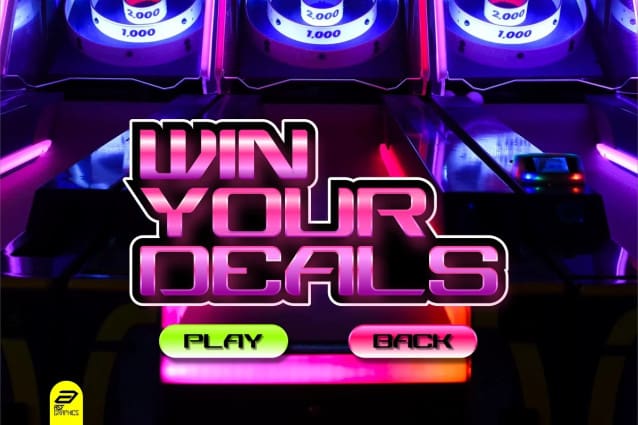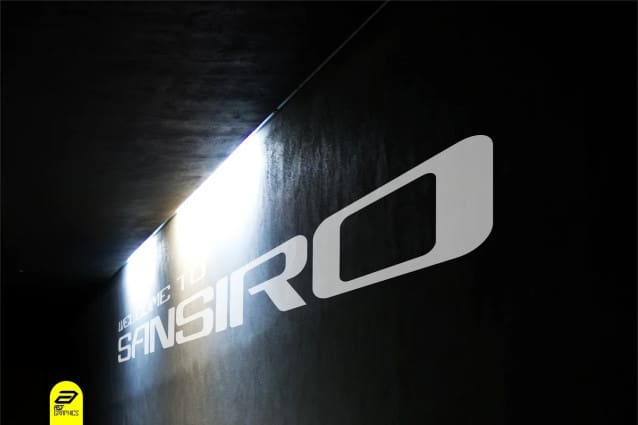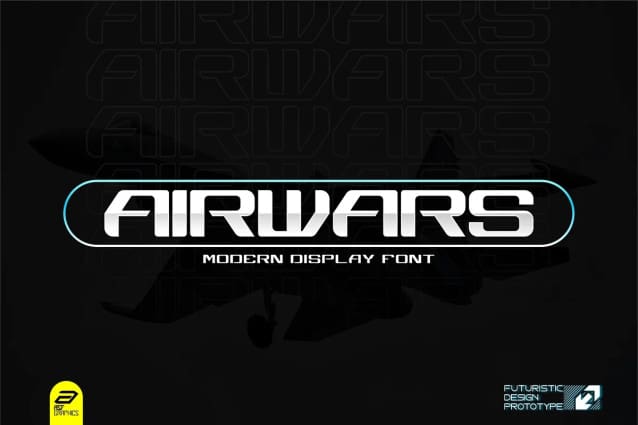
Airwars Display Font
Airwars Display Font is a family of Modern Displays – Geometrics with geometric proportions, rigid and soft elements. With flexibility from thin and wide weights to Super impressively upright and sturdy shapes. Airwars thrives as a utility font that includes extended text fields, in an artsy editorial layout, eye-catching motion graphics, or headlines in a title role. First designed around a perfect circle frame, Airwars evolved by taking inspiration from the contours of the aircraft, the automotive world, expanding to wider proportions, and adopting a series of features built on a sudden. Sturdy with the spirit of sport, the finish maintains a human connection through features minimal contrasting lettering and the trimmed edges carry a defining tone with clinical precision.